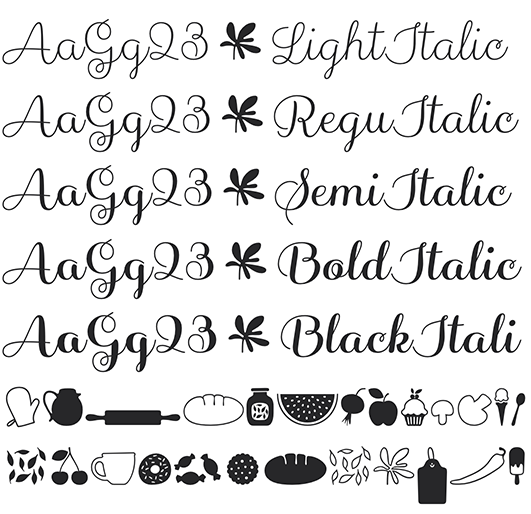
Sabores is a delicious script font inspired by the flavors of the cooking world. It’s based on smooth forms and organic curves.
The family contains 5 weights with italics and swashes. Some delicious dingbats are also included.
Sabores is for logos, branding, food packaging, restaurants, coffee shops, bakeries, food festivals, menus, book titles, and all other tasty design ideas, etc.
Old-style Digits, Ligatures, Discretionary Ligatures, Alternates, Contextual Alternates, Superscript